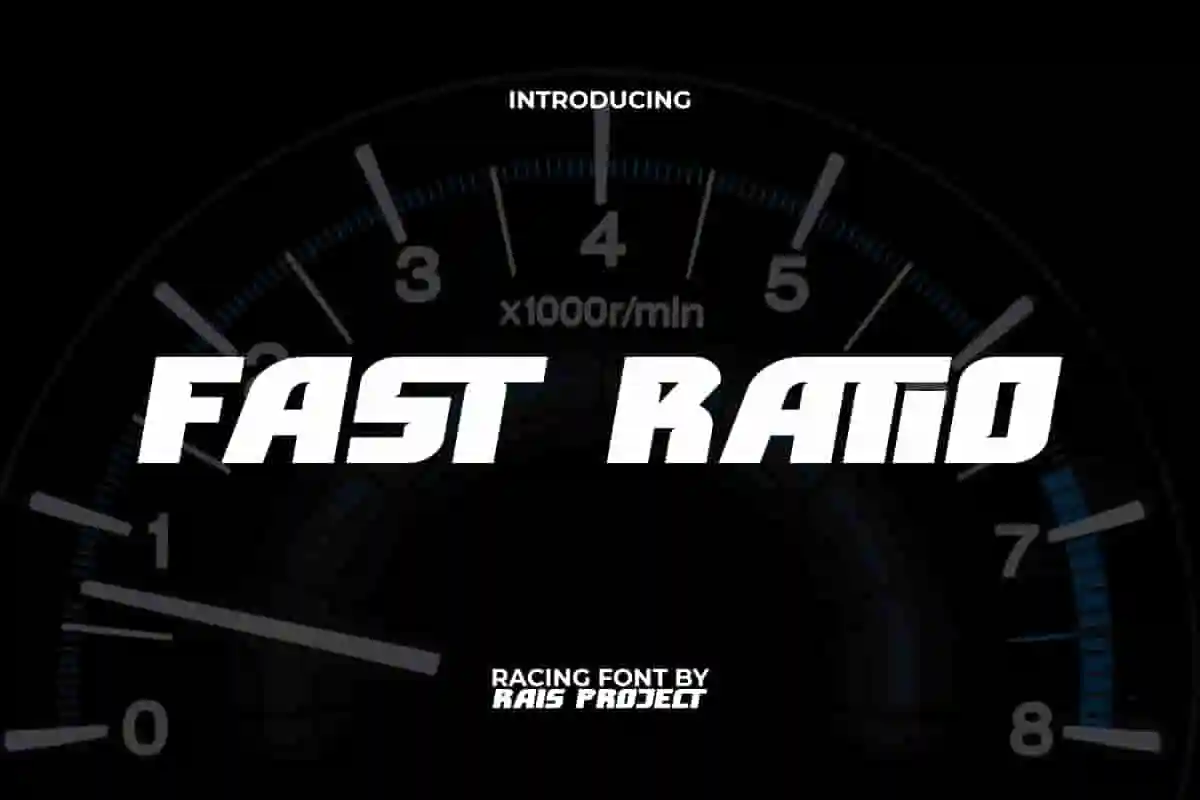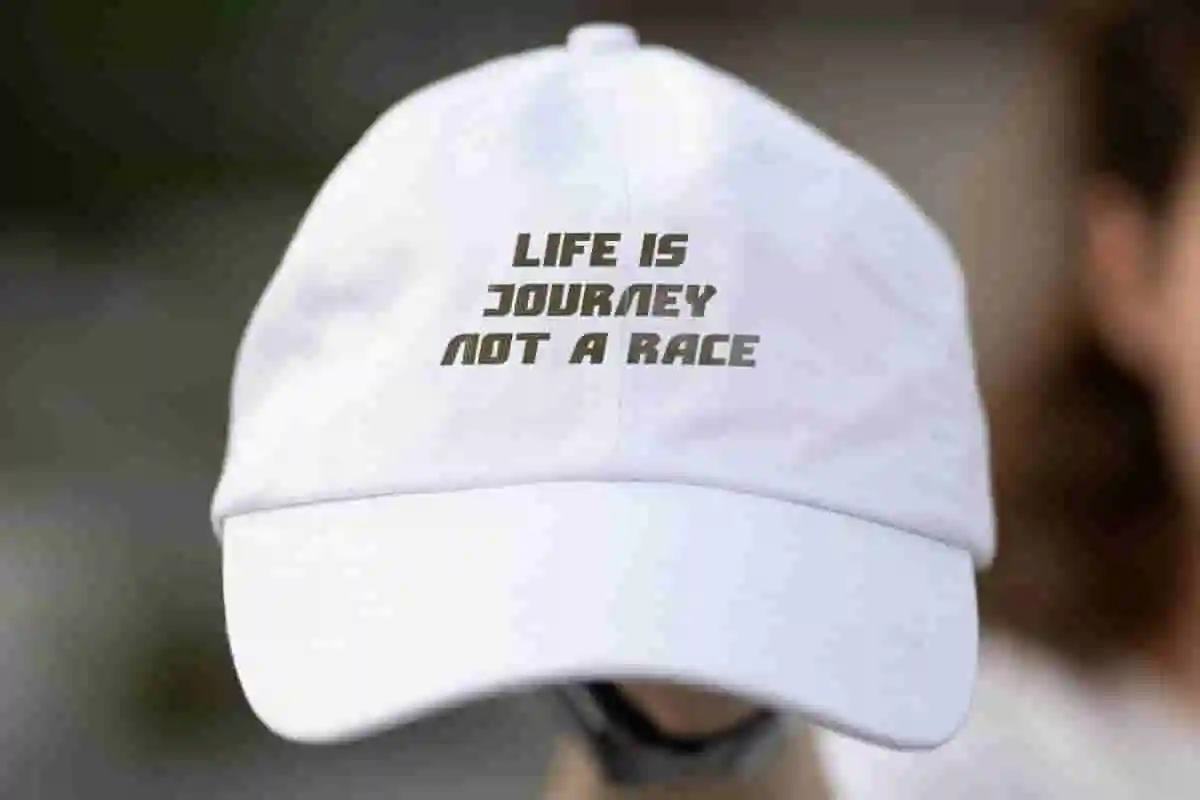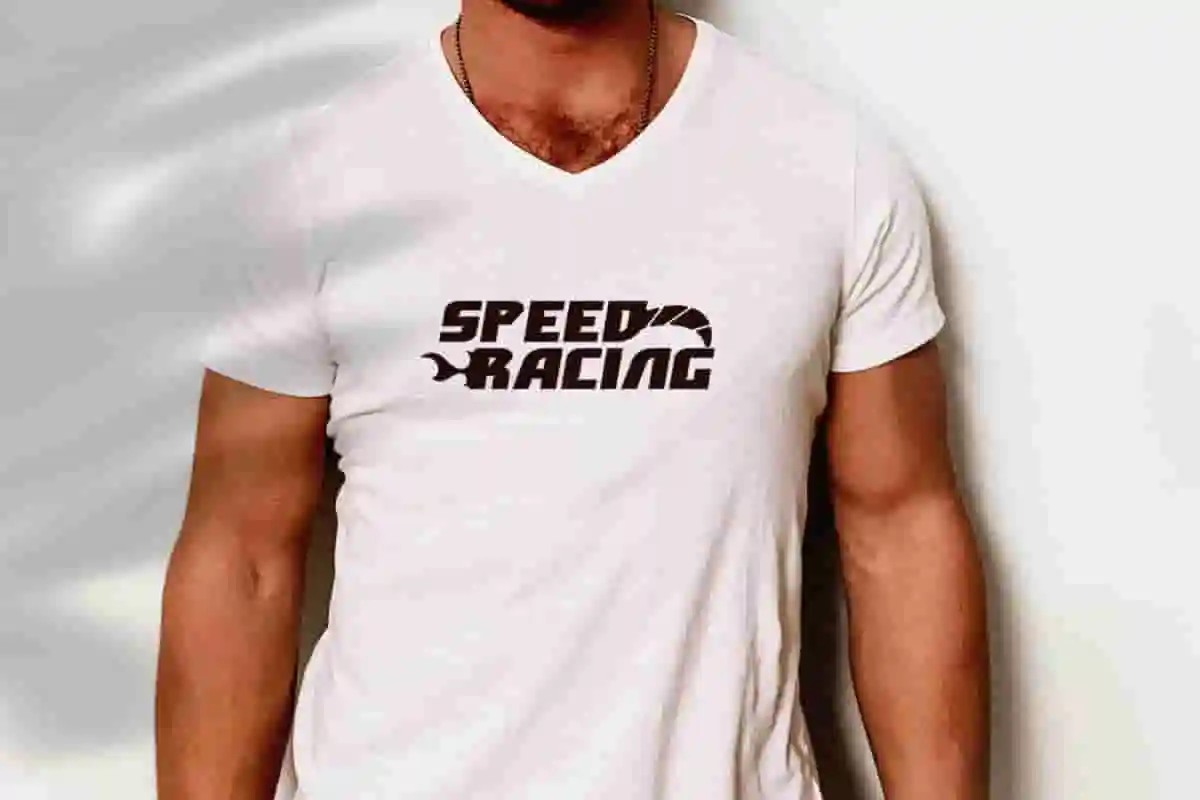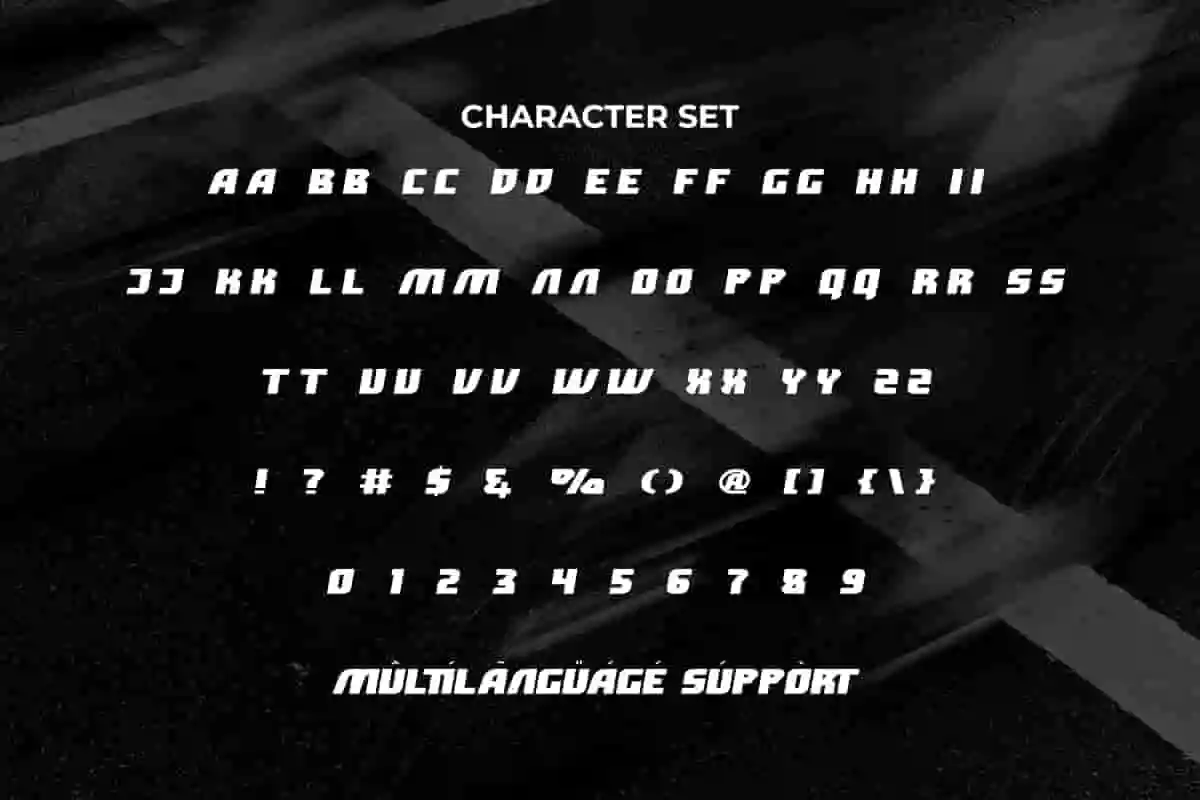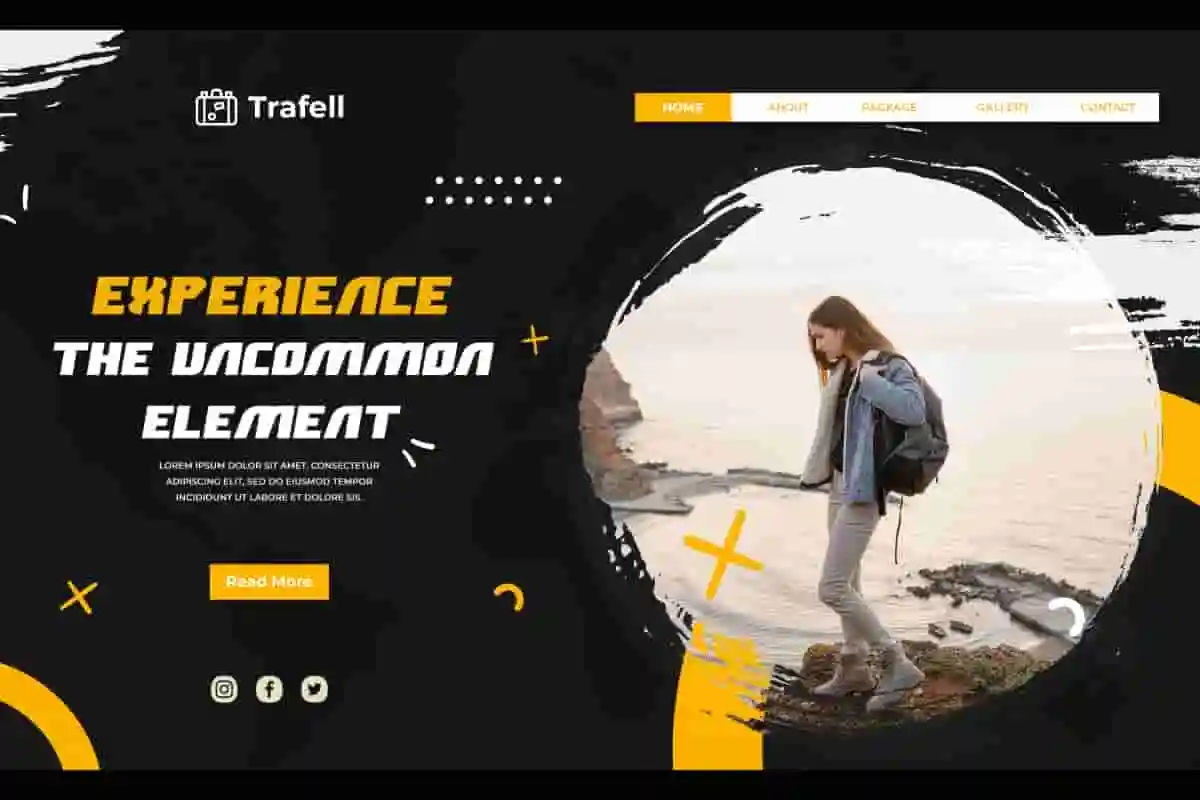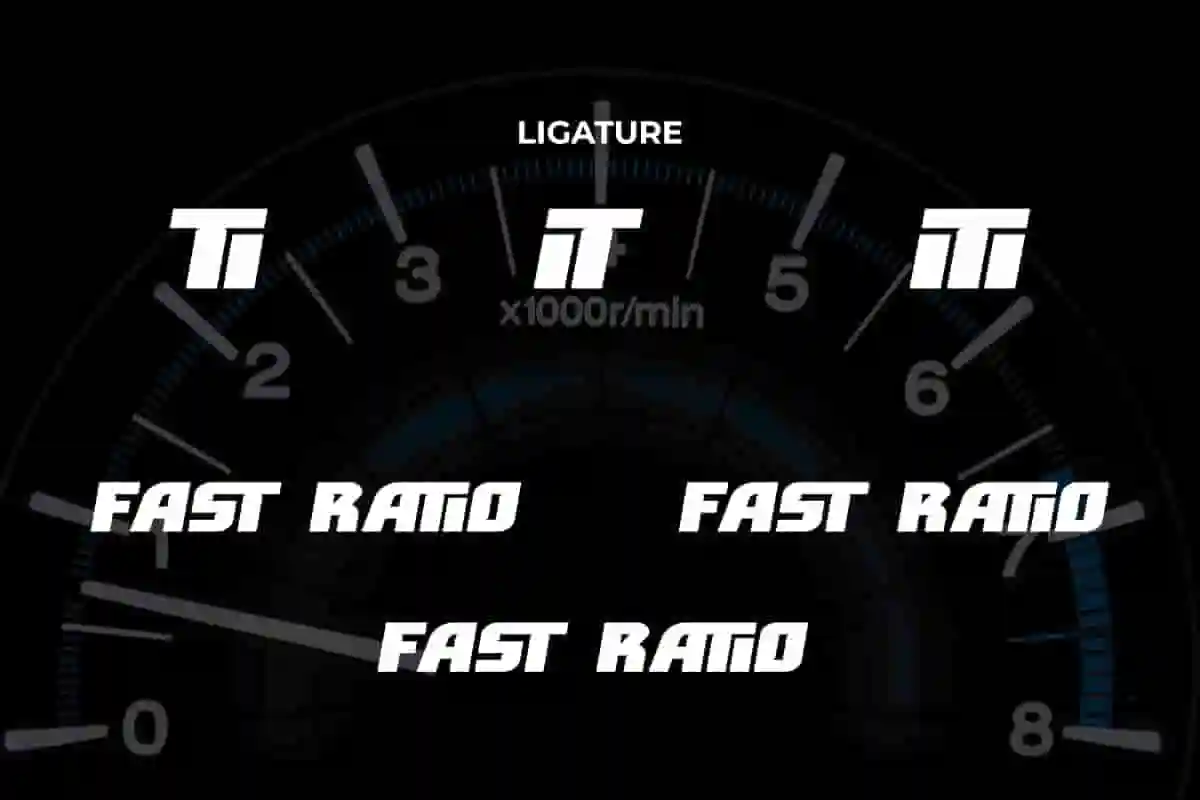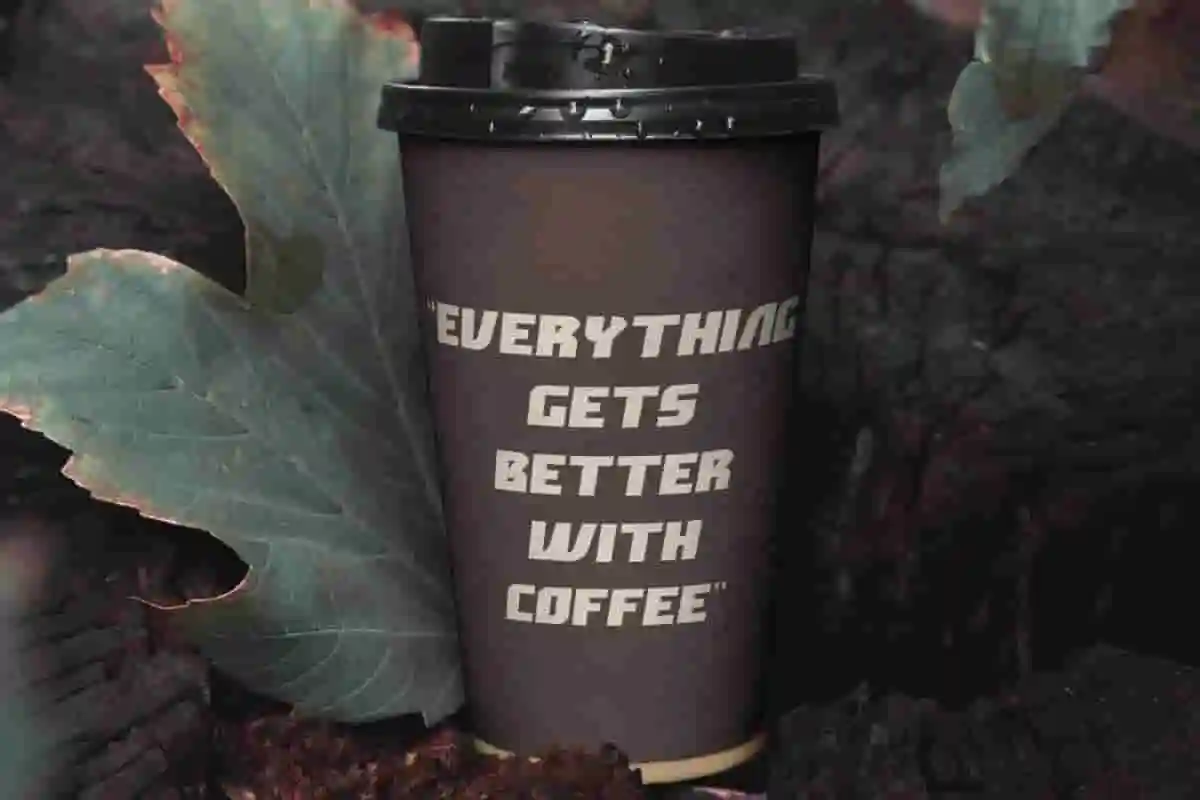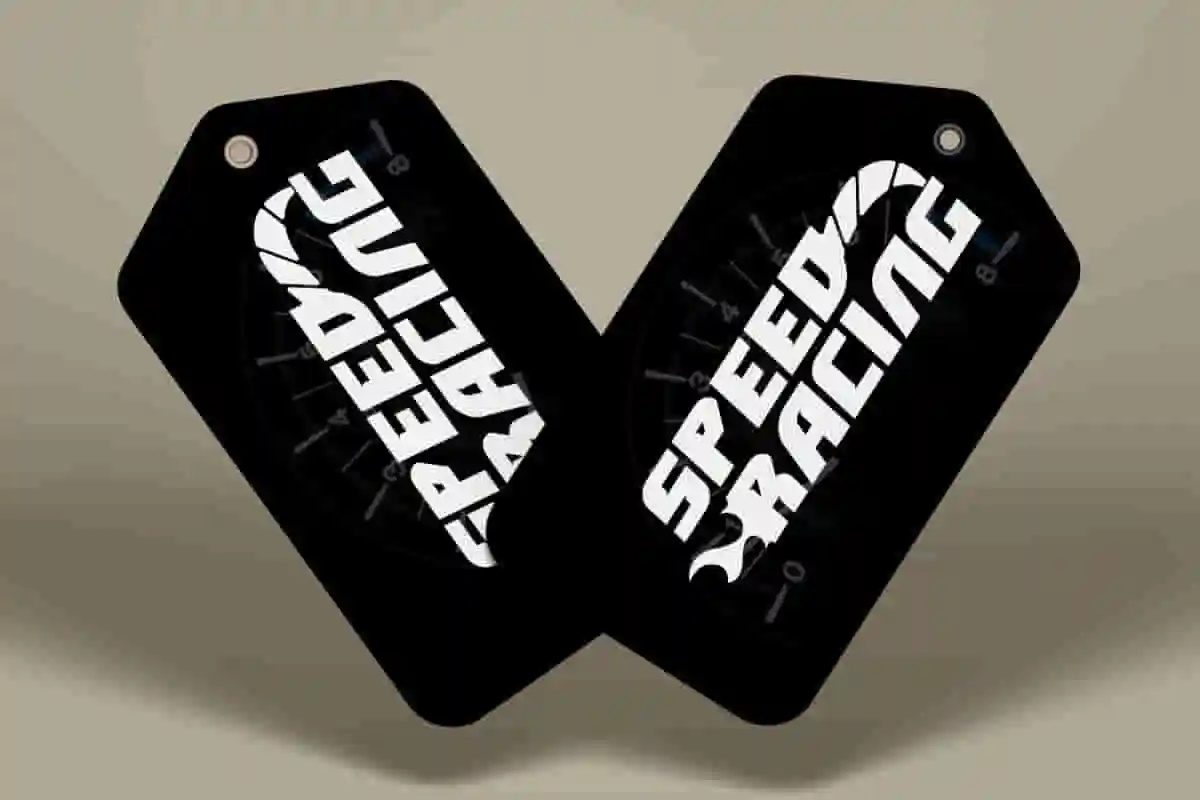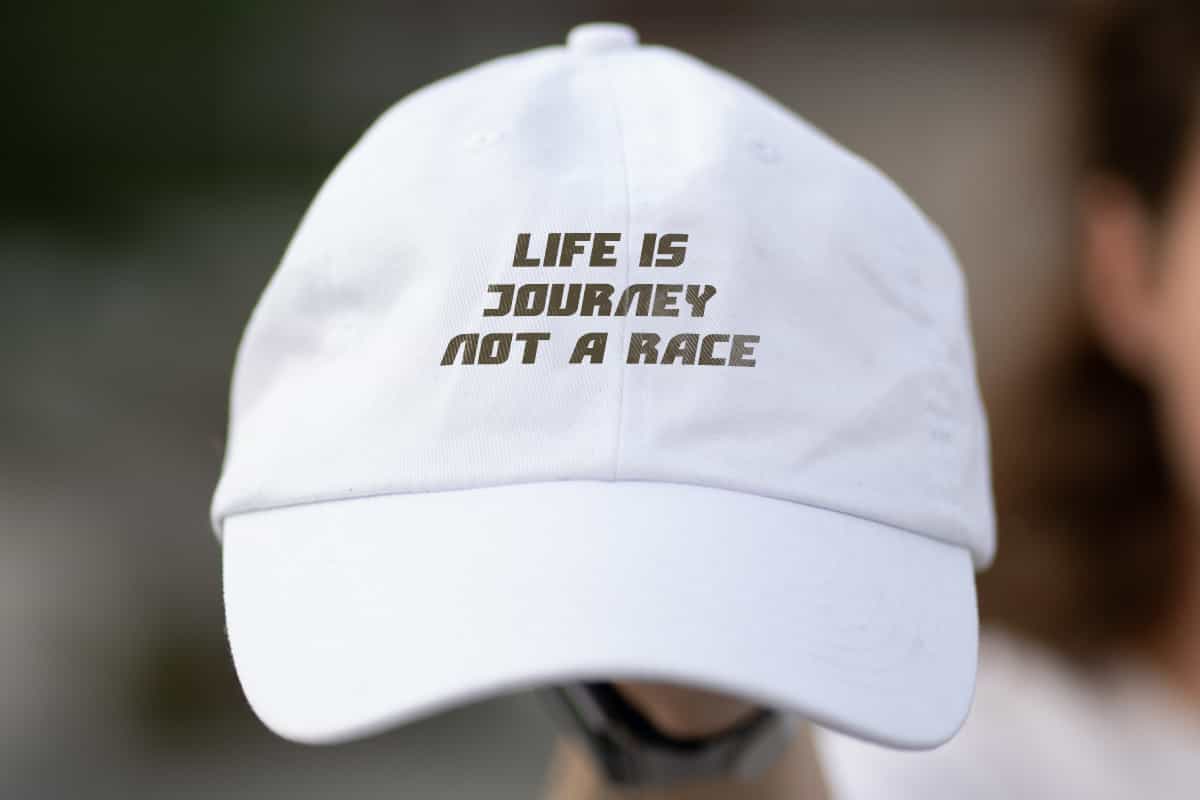
Fast Ratio Display Font
Fast Ratio Font is a bold and basic racing font. Use this font right now to make your design looks standout!
Fast Ratio Font is a cool and stylish racing font, created by RaisProject. This font has bold letter characters so it is easy to read and standout in every draft. It will be good for any designs, such as custom design, poster, product packaging, quotes, poster, signage, brand image, advertisement, invitation, label, marketing material, stationery, website page, and more!
Discover Fast Ratio Display Font – a bold, modern, and versatile typeface designed to help your brand and creative projects stand out. Perfectly balanced with sharp edges and sleek letterforms, Fast Ratio is built for designers who want to make a statement. Whether you’re creating logos, packaging, posters, social media content, or editorial layouts, this display font delivers impact and style in every character.
Fast Ratio Display Font includes a full set of ALL CAPS for Uppercase and Lowercase Letters, Numerals, large range of Punctuation, and Ligature character. This stylish font will be suitable for various industries, such as fashion, automotive, sports, game, barber shop, cafe, event or festival, photography, printing, publishing, etc.